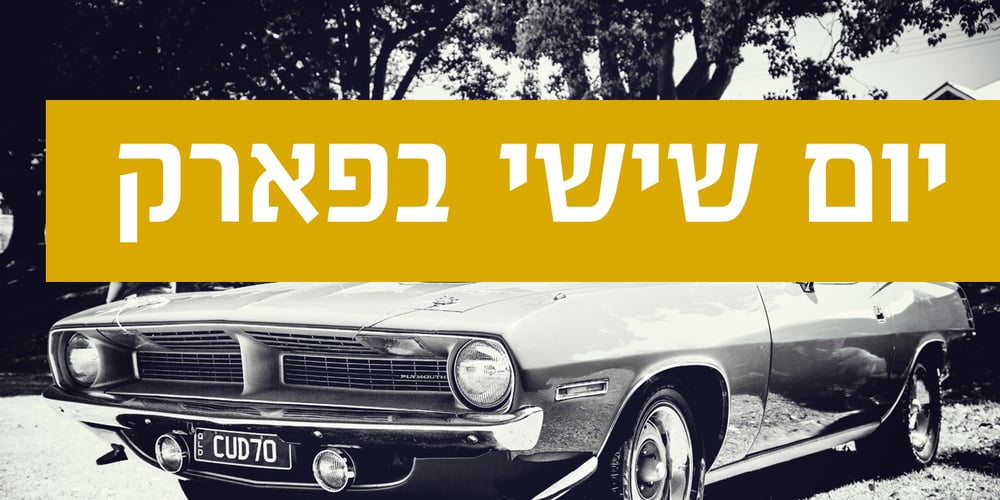
Mishpacha MF
Mishpacha MF font
Mishpacha MF Font Family was designed by Eliyahu Fried and published by Masterfont. Mishpacha MF contains 2 styles and family package options. Heavy duty san serif font family for all uses, fine print to street posters and signage.